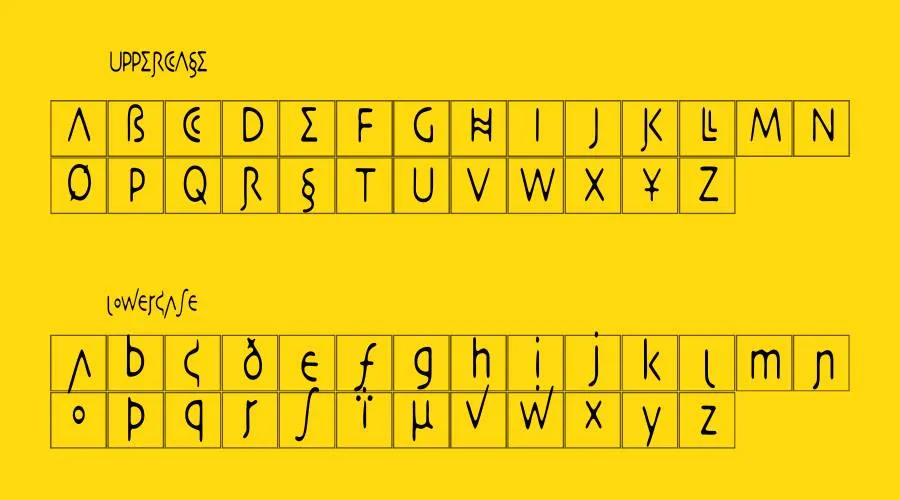
Desert Crypt Font
About Desert Crypt Font
In this article, we shall present to you a new stylish and cartoonish shape texture called Desert Crypt Font. The subfamily of this typeface is Oblique and contains different types of styles and weights such as bold, italic, and regular.